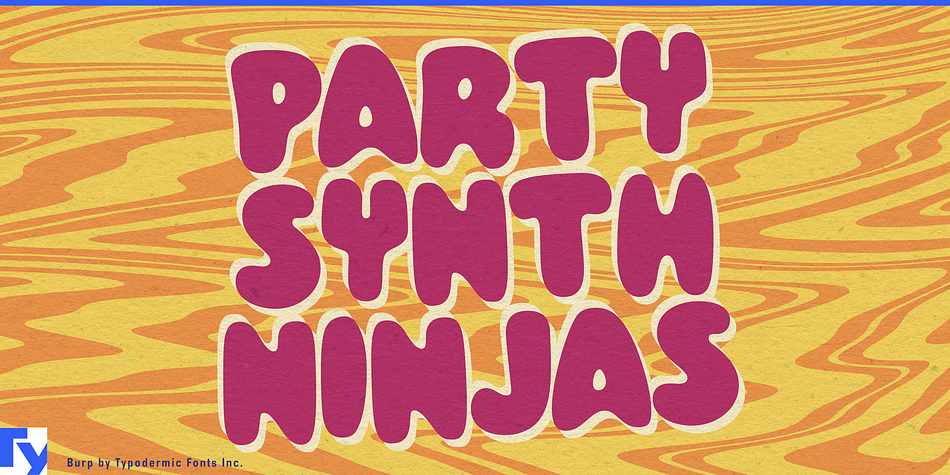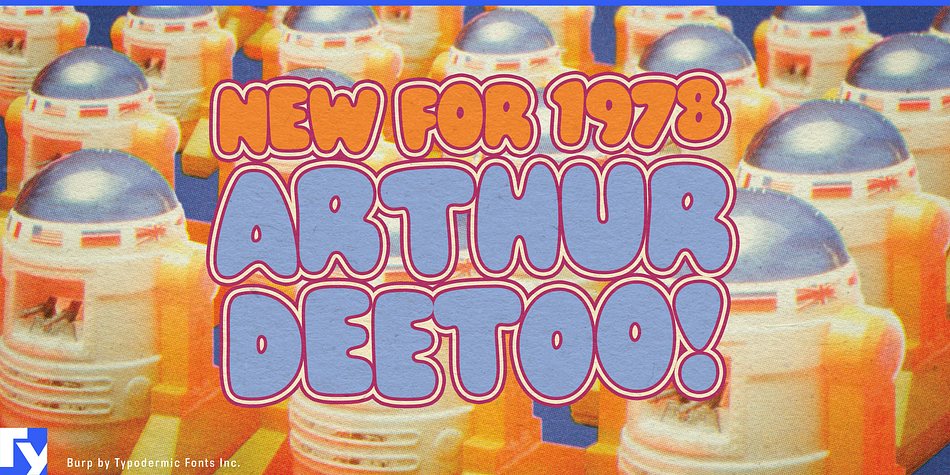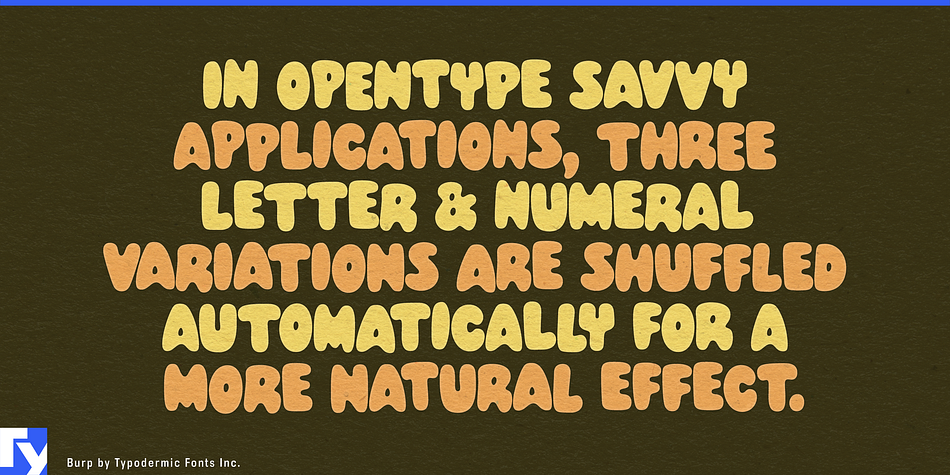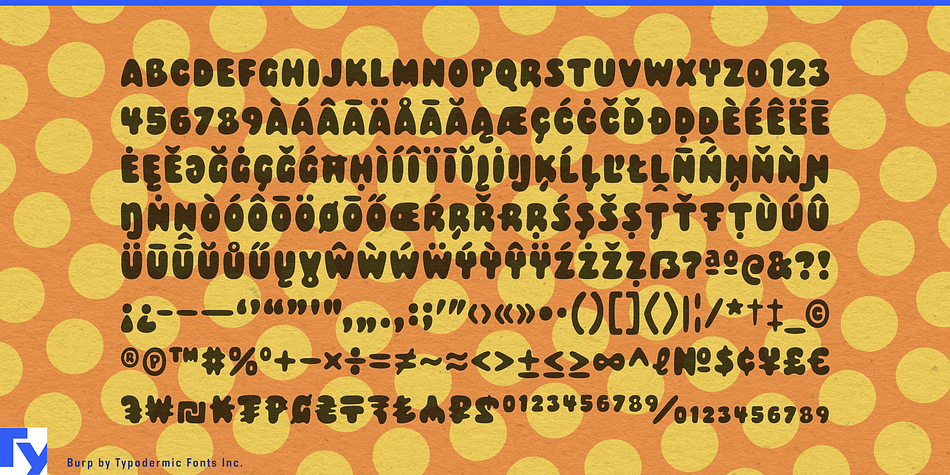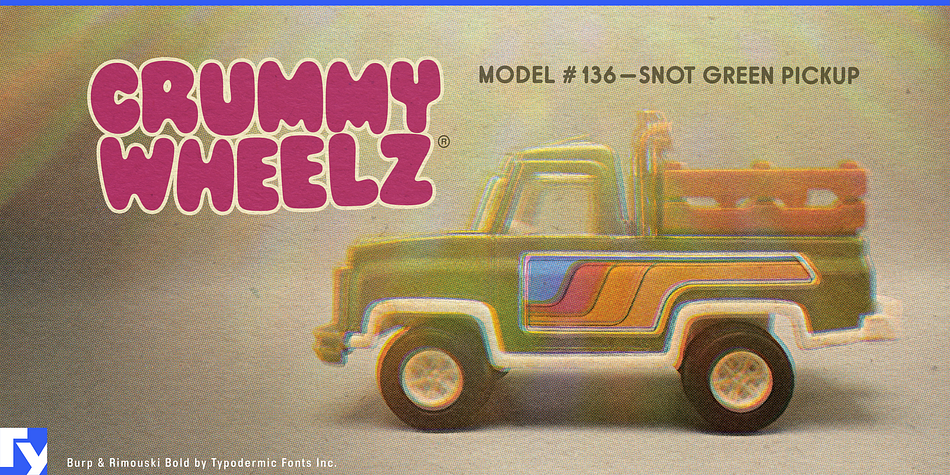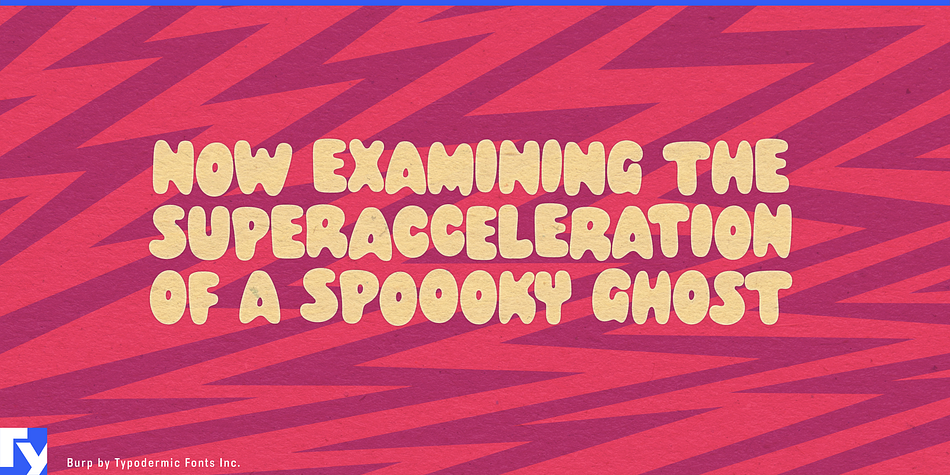
BURP
Designed by Ray Larabie, Burp is a hand display font published by Typodermic Fonts Inc.
Hey, cats and kittens! Dig this groovy font we got for ya—Burp! It’s the perfect typeface for all your cartoon headline needs. With its heavy weight, small counters, and tight spacing, you’ll be making a visual footprint that’ll knock ’em out!
And that’s not all, daddy-o! Burp comes equipped with automatic shuffling of three letter and numeric variations in OpenType-savvy apps, giving your words that cool, hand-drawn vibe. It’s like having your very own in-house cartoonist!
So, if you want to add some serious pow and pizzazz to your headlines, just hit up your application’s contextual alternates or standard ligatures option and watch the magic happen. Don’t be a square, man—get Burp and let your words do the talkin’!